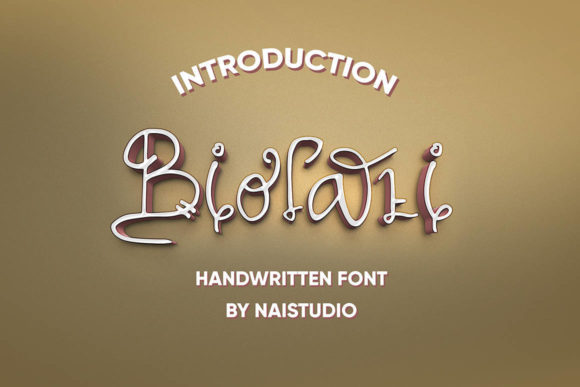
The Sweet Spot: Discovering the Charm of Biolati Font
I’ll never forget the time I was working on a wedding invitation project, and my client asked for a font that was both elegant and playful. I scoured the internet, tried out countless fonts, but nothing seemed quite right. That was until I stumbled upon Biolati Font. ✨ It was love at first sight! The sweet and neat handwritten style instantly captured my heart, and I knew I had found the perfect fit for my project.
What I Love About Biolati Font
• Versatility: Biolati Font is incredibly versatile, making it perfect for a wide range of design projects, from wedding invitations to social media posts.
• Elegant yet Playful: The font’s sweet and neat handwritten style strikes the perfect balance between elegance and playfulness.
• 📝 Easy to Read: The font is clear and easy to read, even at smaller sizes.
While Biolati Font is an amazing font, it’s not perfect. Here are a few things to keep in mind:
• ⚠️ Limited use of OpenType features: Biolati Font doesn’t have a wide range of OpenType features, which might limit its use in certain projects.
• 🤔 Not ideal for body text: While the font is easy to read, it’s not the best choice for large blocks of body text.
The Story Behind Biolati Font
Biolati Font was designed with love and care by a talented font designer who wanted to create a font that was both elegant and playful. The designer drew inspiration from classic handwritten fonts, with a modern twist. The result is a font that’s both versatile and beautiful.
Font Name Biolati Font
Author naistudio
Q: What is Biolati Font?
A: Biolati Font is a sweet and neat handwritten font that’s perfect for creating gorgeous wedding invitations, beautiful stationery art, eye-catching social media posts, and more!
Q: What are some common uses for Biolati Font?
A: Biolati Font is perfect for creating wedding invitations, stationery art, social media posts, and more!